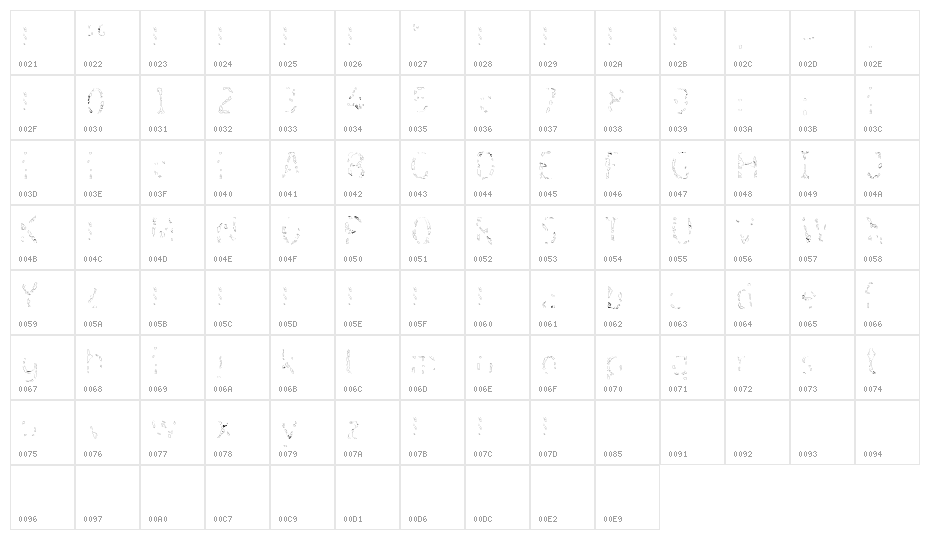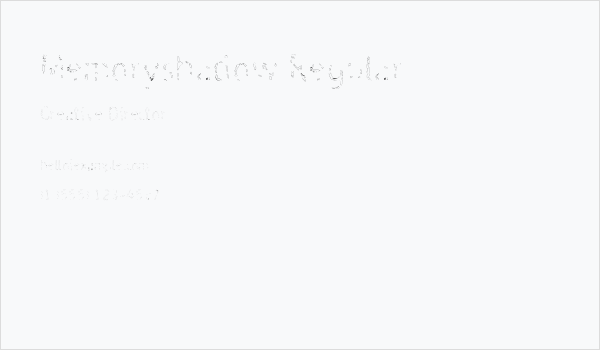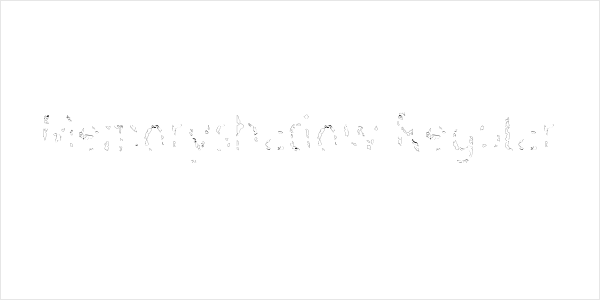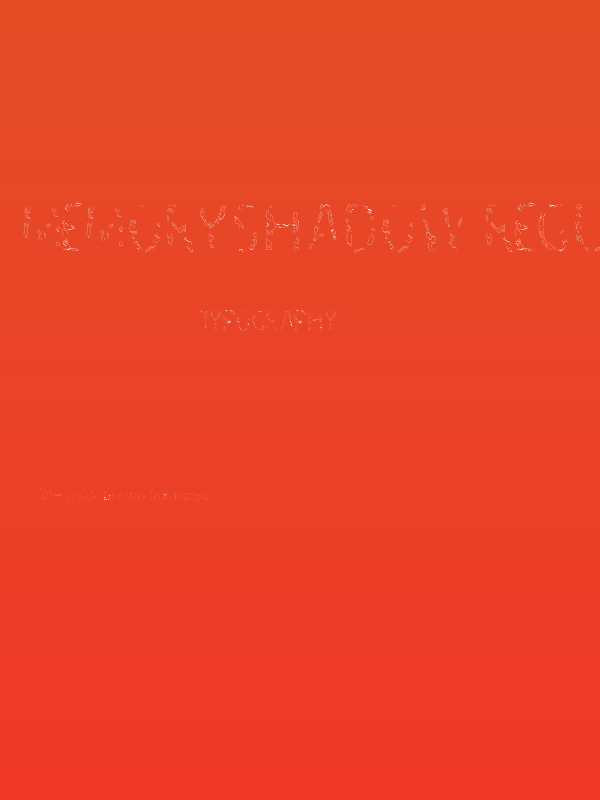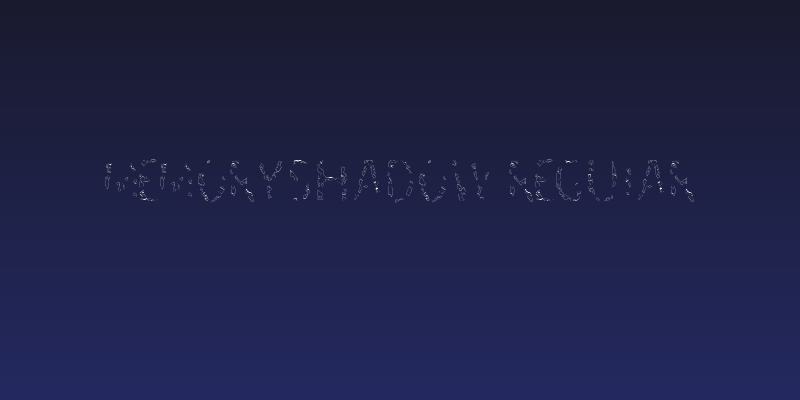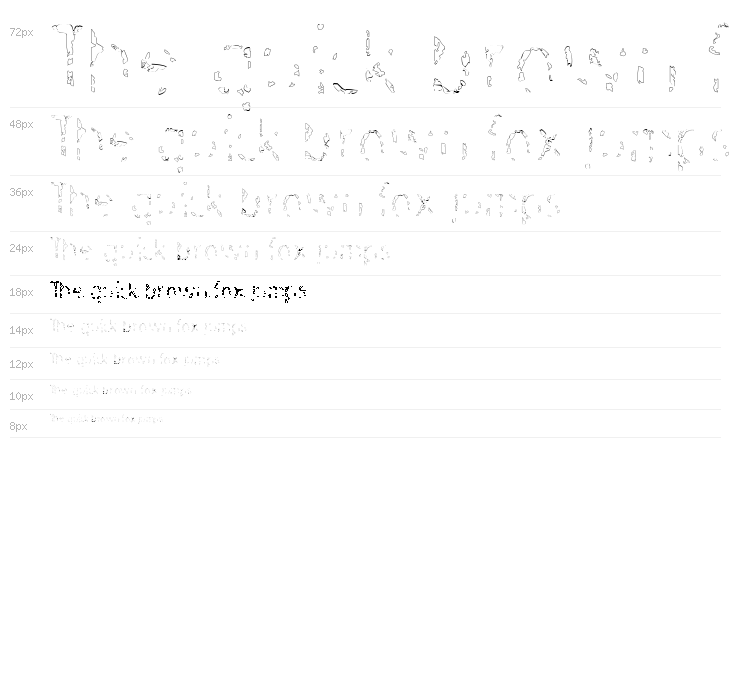
Memoryshadow Regular Font
Memoryshadow Regular Description
This font features a unique, fragmented design that gives the appearance of letters being partially erased or shadowed. The characters are composed of broken lines and scattered fragments, creating a sense of mystery and intrigue. The style is reminiscent of distressed or grunge aesthetics, making it suitable for projects that require a touch of edginess or artistic flair. Despite its fragmented appearance, the characters remain legible, allowing for creative expression without sacrificing readability. The font's distinct style makes it a standout choice for designs that aim to capture attention and convey a sense of modernity and creativity.
| Overall Style | Modern, Artistic |
| Use Case | Headlines, Artistic projects, Branding |
| Proposed Projects | Ideal for album covers, posters, artistic projects, and branding that seeks a modern, edgy look. |